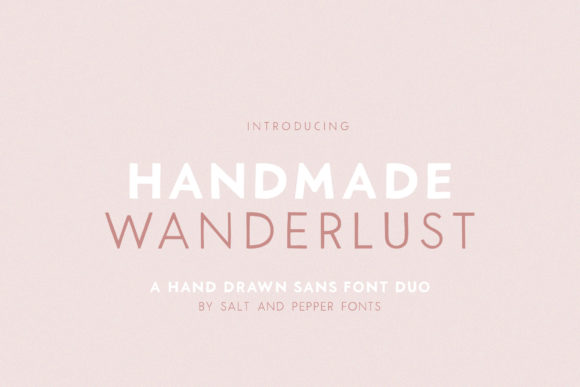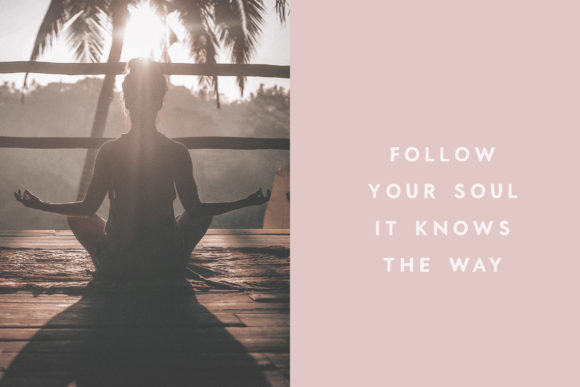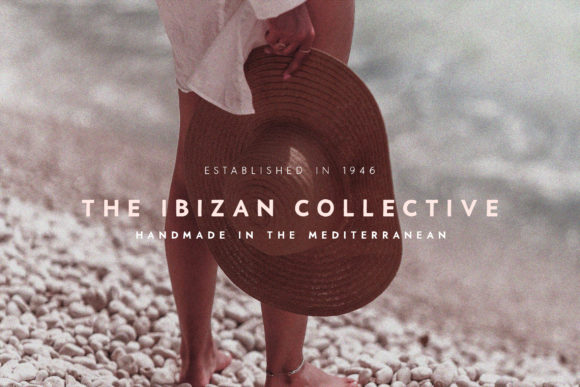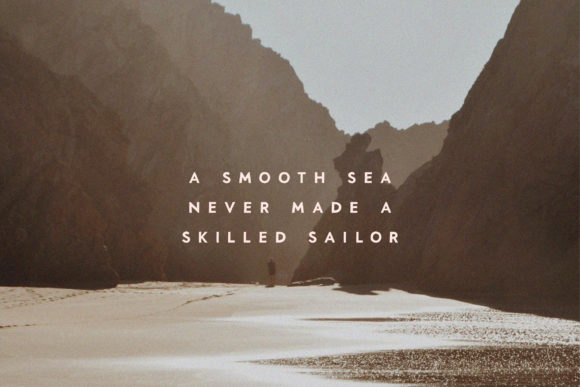
Handmade Wanderlust Duo Font
About the Handmade Wanderlust Duo Font
We are excited to introduce Handmade Wanderlust Duo Font, a must-have typeface for any serious designer. Handmade Wanderlust Duo is a lovely duo sans serif font (thick and thin). Whether you use it for cartoon related designs, children games or just any creation that requires a lovely touch, this font will be an amazing choice.
Its playful, slightly quirky nature makes it ideal for children’s books, branding for playful products, or eye-catching headlines on posters and invitations. The distinct weight contrast adds visual interest to short text blocks, but its less-than-optimal x-height makes it unsuitable for large bodies of text or UI elements where readability is paramount.
Consider pairing Handmade Wanderlust Duo with a clean sans-serif like Open Sans for body copy to maintain visual harmony while ensuring readability. Alternatively, a classic serif like Garamond could provide a sophisticated counterpoint, highlighting the handmade font’s informal charm.
The overall personality is friendly and approachable, yet retains a unique character that prevents it from appearing overly childish. Avoid using it in contexts requiring sophistication or neutrality.
Handmade Wanderlust Duo Font Usage Examples
Handmade Wanderlust Duo Font Example